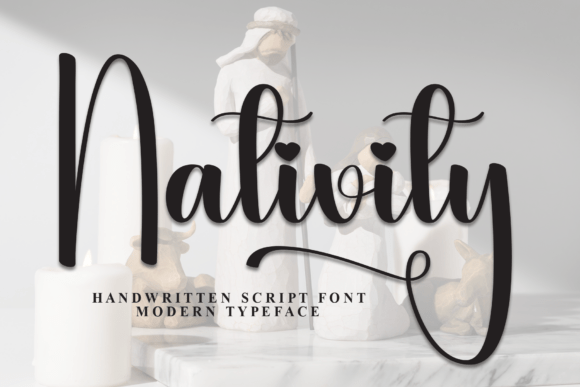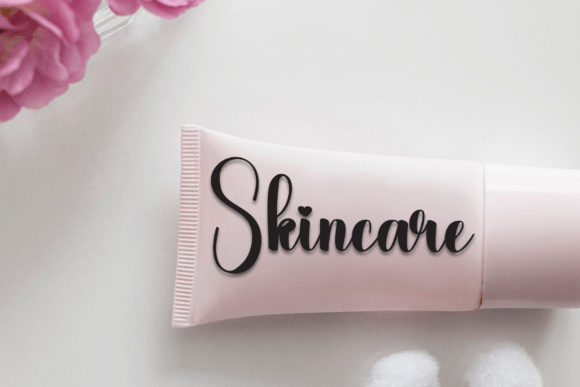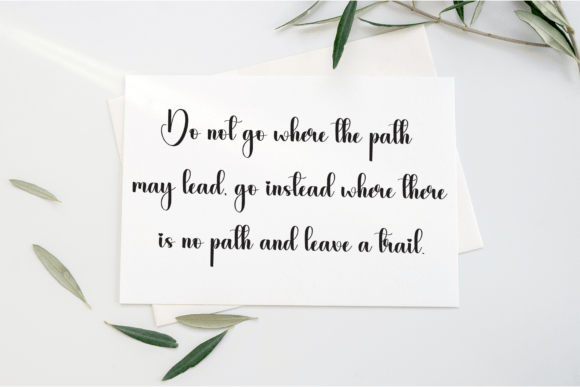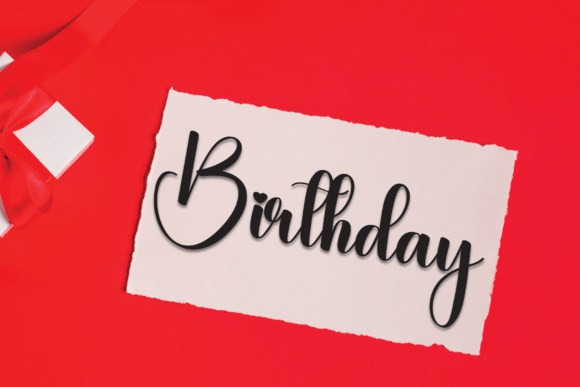
Nativity Font: A Sweet Handwritten Script for Branding & Wedding Designs
About the Nativity Font
Presenting Nativity Font, a unique and stylish typeface that will make your work stand out. Introducing an endearing handwritten display font with personality to spare – a delightful mixture of charming and playful. This captivating typeface, ideal for crafting wedding invitations or cards, adds a whimsical, fun touch to any design you conceive. Exuding sweetness and friendliness, this font transform your ordinary texts into extraordinary art pieces. Indulge in the fun and light-hearted feel of this quirky font as it breathes life into your creative endeavors.
Nativity Font’s playful energy makes it perfect for headlines, short text blocks on packaging, or eye-catching social media posts. It excels in projects needing a friendly, approachable feel, such as children’s books, invitations, or branding for a bakery or craft shop. However, its informal style is less suitable for body text, long paragraphs, or user interfaces requiring high readability.
Consider pairing Nativity Font with a clean sans-serif like Open Sans for a balanced contrast, or a delicate script font like Great Vibes for a more whimsical effect. For a bolder statement, a geometric sans-serif like Montserrat could be used. Avoid pairing it with overly ornate or heavy fonts which might overwhelm its charm.
The font’s overall personality is best described as friendly and whimsical, with a touch of vintage charm. Its slightly imperfect lettering creates a handmade feel, perfect for projects emphasizing warmth and approachability.
Nativity Font Usage Examples
Nativity Font Example